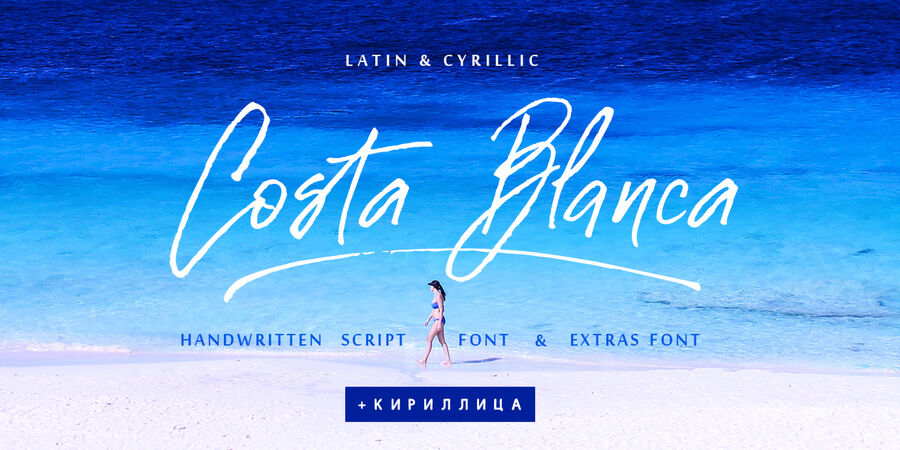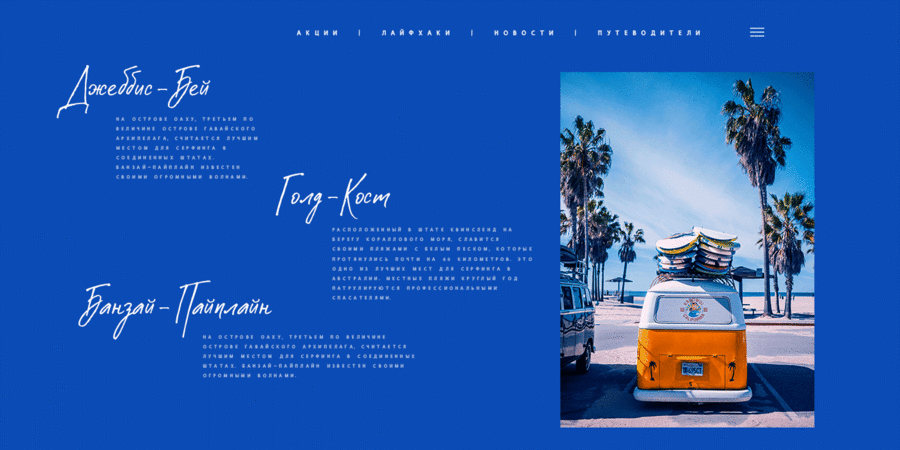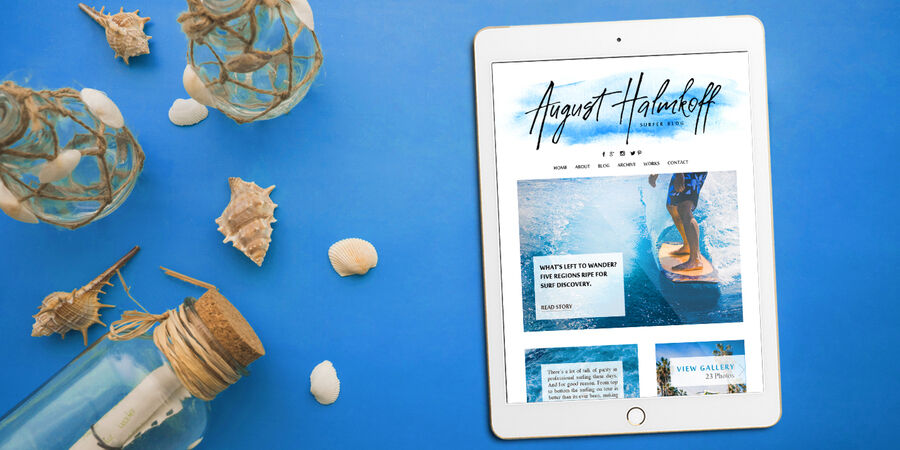
Costa Blanca (2 fonts)
The hand-drawn script Costa Blanca Cyrillic was handwritten with thin colapen and will look great on branding design, posters, apparel, logotype, website header, fashion design, wedding card design, and more.
Hand-drawn script font Costa Blanca contains a full set of uppercase letters and 2 full sets of lowercase letters and 36 ligatures - which can be used to create a handwritten calligraphy look. Use alternate lowercase and double-letter ligatures to create a perfect hand-painted look in your creations.
The Cyrillic part of the font contains the uppercase letters and lowercase letters and 17 ligatures, giving a realistic hand-lettered style.
Additional symbols font Costa Blanca symbols contain illustrations and elements and can help to make your design more original. It is a font with over 60 unique, hand-drawn illustrations and elements. A different symbol is assigned to ever uppercase and lowercase standard character plus numbers 0-9 so you do not need graphics software just simply type the letter you need.
The typeface was designed by Iryna Dvilyuk in 2021.
Associations for font family Costa BlancaTypeface personality and character:
informal, glad, fresh, air, fast, dynamic, inspired, lyrical, sensual, emotional, musical, poetic, artistic, passionate, creative, dashing, cheeky, daring, original, freewheeling, cutting, picturesque, alive, temperamental, quick, sweeping, summer, distinctive, festive, romantic, rhythmic, easy, female, major, windy, dancer, interesting, beautiful, elegant, feminine, epistolary, craft brewed, sexy, nice, thin, flying, running, green, fashionable, happy, man-made, manual, eco-friendly, confidence, natural, agile, lamp, healthy, peppy, domestic, vernacular, children, naive, playful, frivolous, intimate, sentimental, pretty, Artisanal, vegetable, girlish
celebration, lyrics, souvenir, poetry, literature, art, flowers, music, dance, cafe, love, poems, wine, summer, romance, dress, beauty, Instagram, advertising, clothes, handmade, garden, diary, gifts, recreation, ASMR, graphics, illustration, morning, dawn, landscape, fashion, sea, barbershop, selfie, diet, nature, tourism, entertainment, exhibition, princess, interior Typeface exhibits stylistic traits: